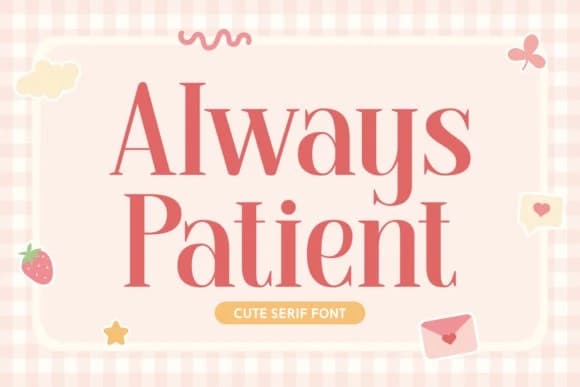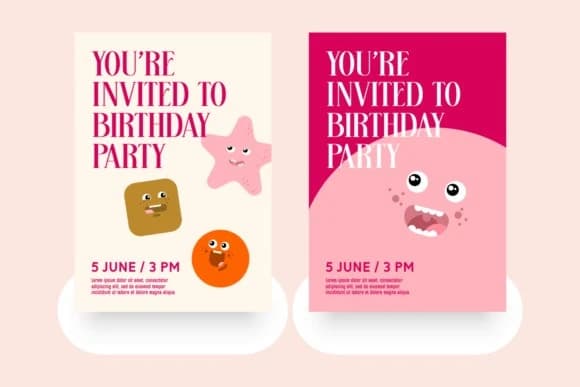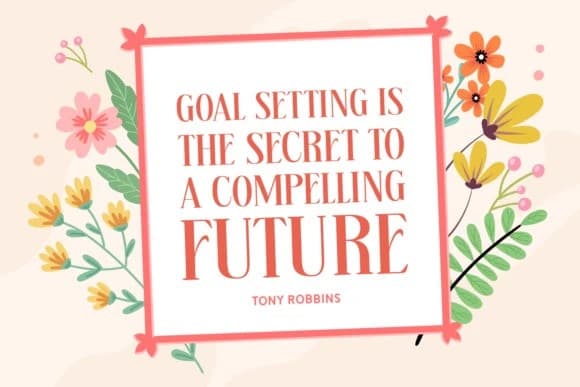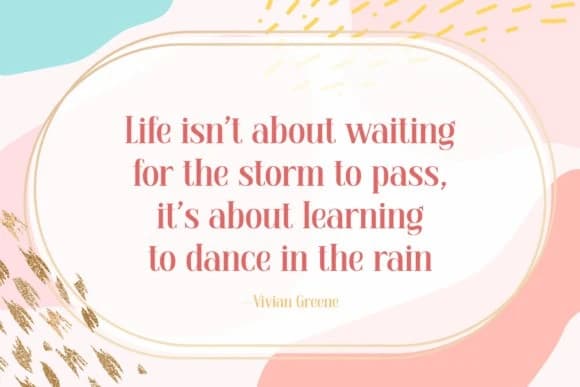
Always Patient Font
Always Patient Font, your diverse typography companion. Wrapped within its Serif lineage, it sends waves of elegance and contemporary charm. Its craftsmanship finds an ideal home in realms of photography and accents